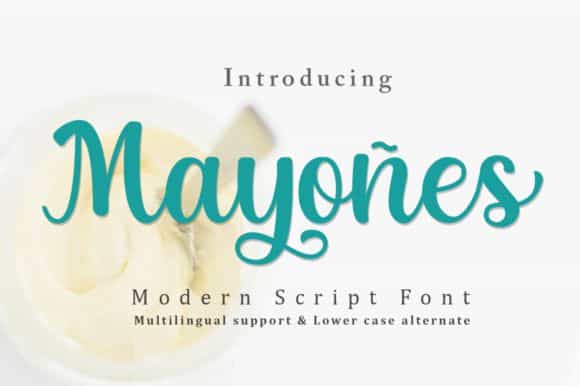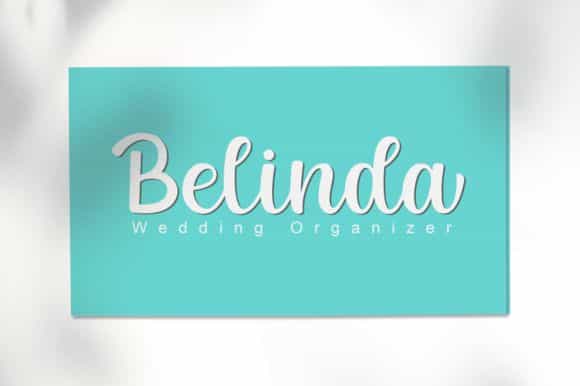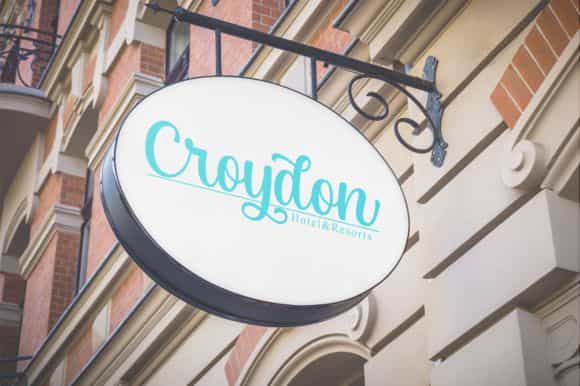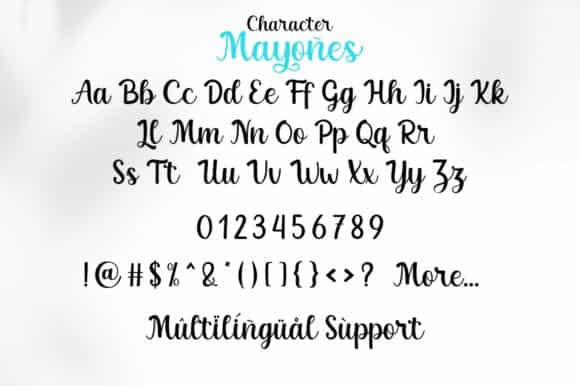
Elegance blends with luxury in Mayones font. It invokes a quintessential femininity of trait with sleek yet welcoming impression for any feel you’d want to achieve. This font include ligatures, capital letters and alternate letters. You need a program that supports OpenType features Adobe Illustrator, Adobe Photoshop CC, Adobe Indesign and Corel Draw.